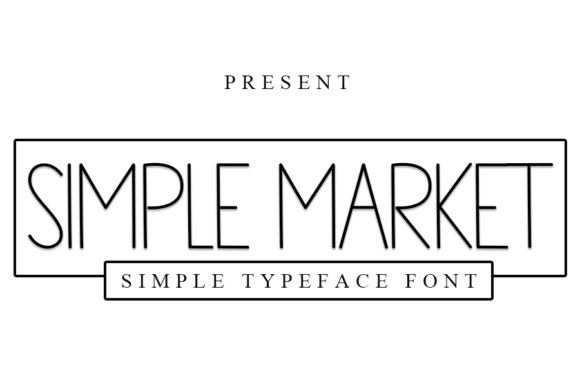
Simple Market Font
Simple Market is a cool and modern sans-serif font. Whether you’re using it for crafts, digital design, presentations, or creating greeting cards, this font has the potential to become your go-to font, whatever the occasion.